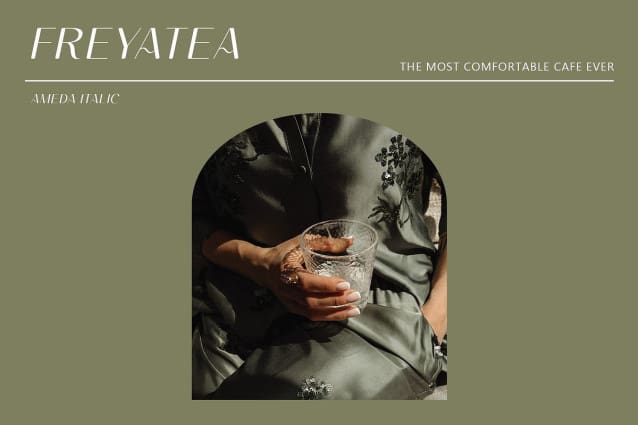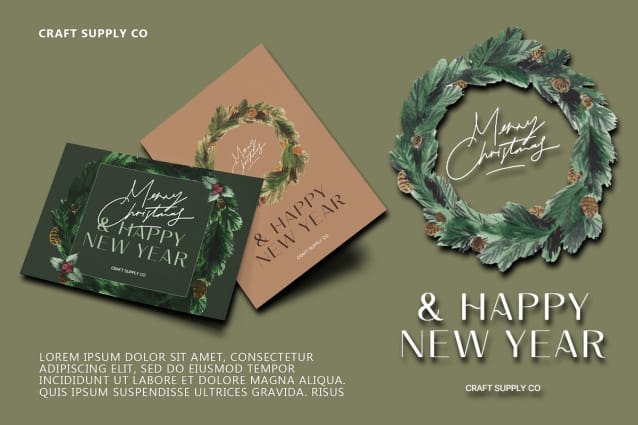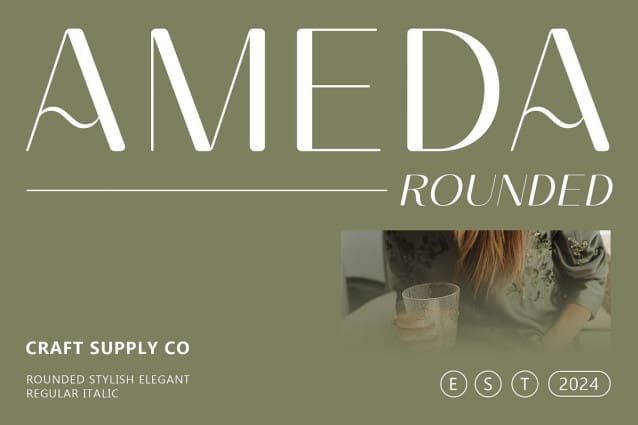
Ameda Rounded Font
Ameda Rounded Font: Elevating Minimalist Elegance. High Contrast, Modern Form Ameda Rounded features a sleek sans serif design with striking high contrast, embodying a modern aesthetic that catches the eye effortlessly.
Rounded Stroke for Soft Elegance The font’s rounded strokes add a touch of softness and elegance, balancing its modern form with a subtle warmth that appeals to the minimalist sensibility.
Perfect Blend of Style and Simplicity This font strikes the perfect balance between style and simplicity, making it a versatile choice for various design applications, from branding to editorial layouts.
Elegance in Minimalism With its clean lines, high contrast, and rounded strokes, This font exudes elegance in its minimalist approach, offering a refined typographic solution for contemporary design needs.
Ameda Rounded’s modern appeal lies in its ability to seamlessly blend sophistication with simplicity, making it an ideal choice for projects that demand a refined yet approachable typographic style. Whether used for headlines or body text, Ameda Rounded adds a touch of timeless elegance to any design composition, ensuring it stands out with understated charm.